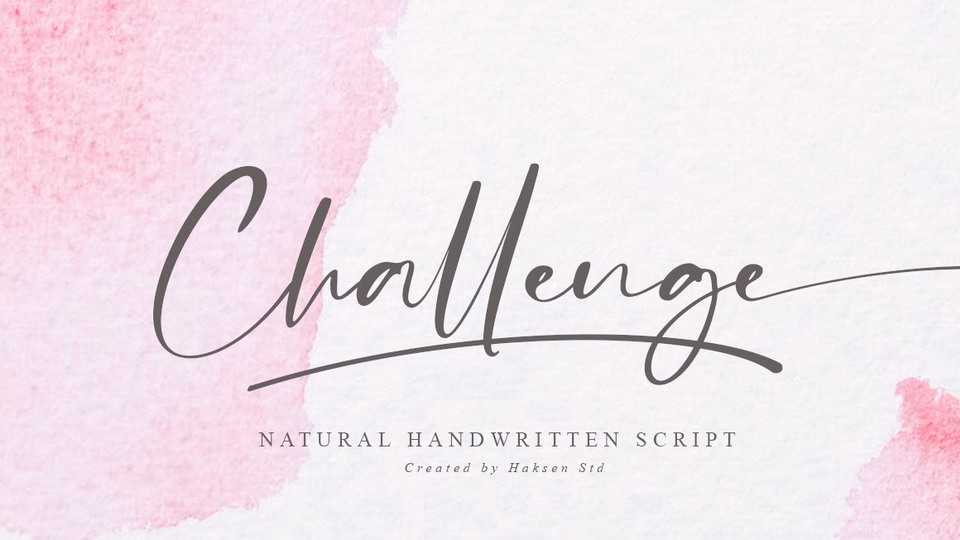
Download Challenge font, a stylish modern handwritten script with a casual chic flair. Challenge is perfect for branding, signature, wedding invitation, promotion, product packaging, and other needs.
Designer: Haksen Studio